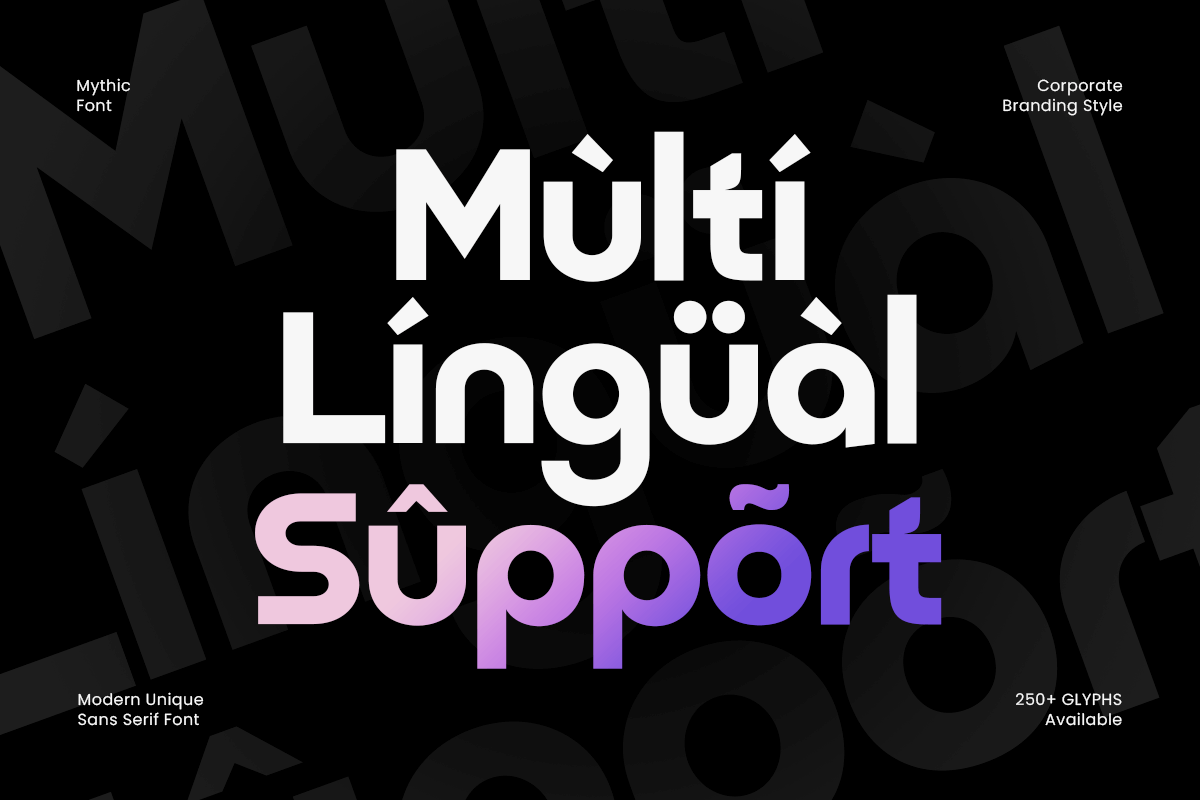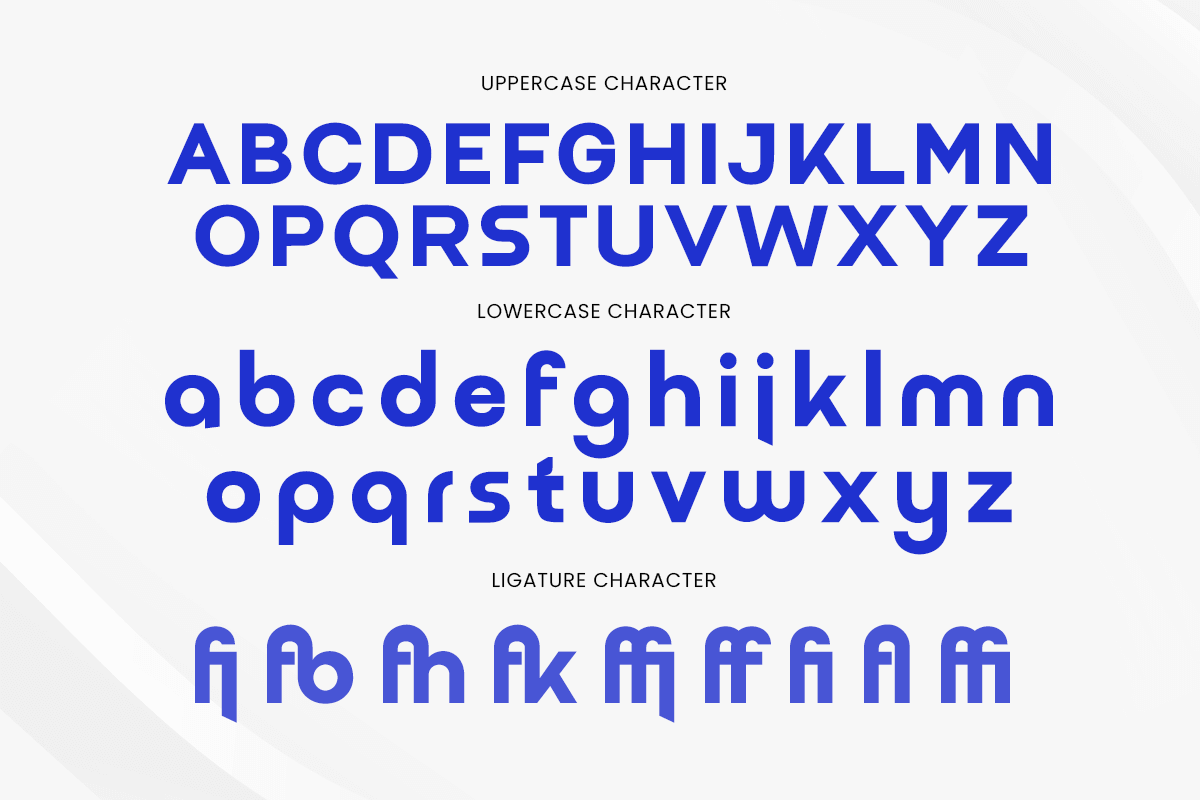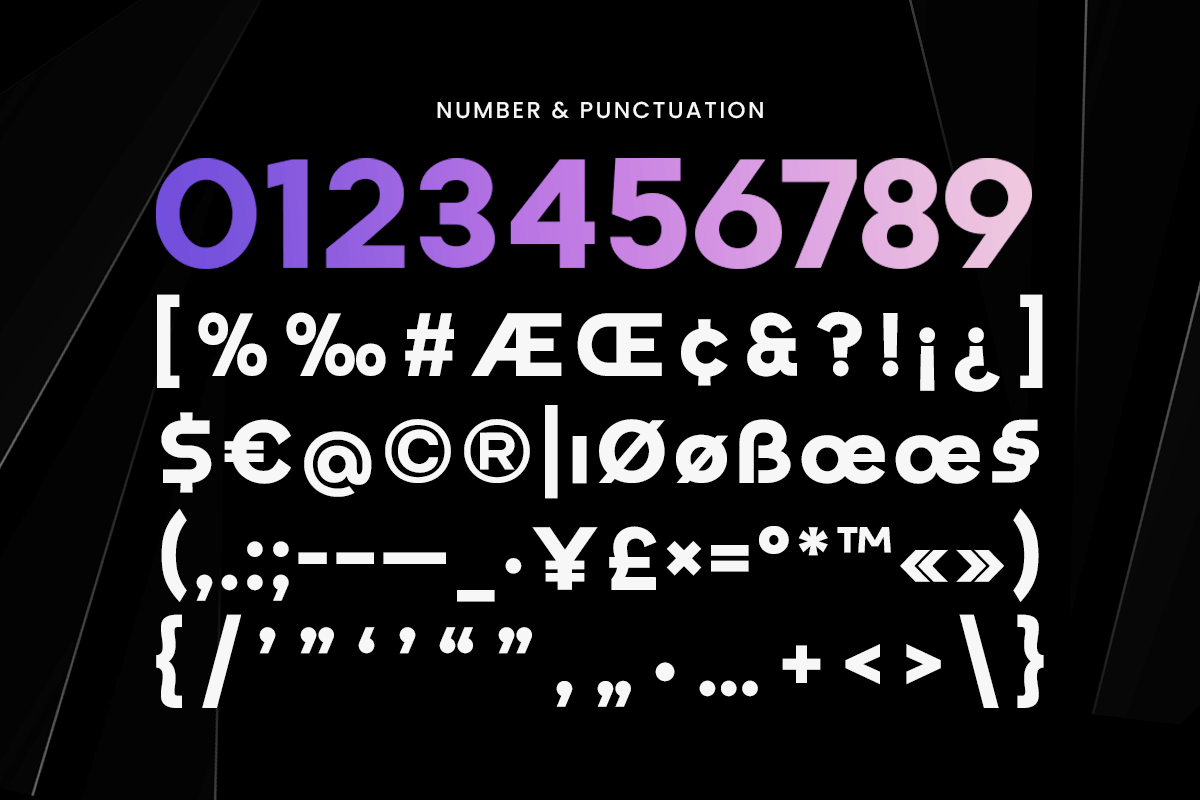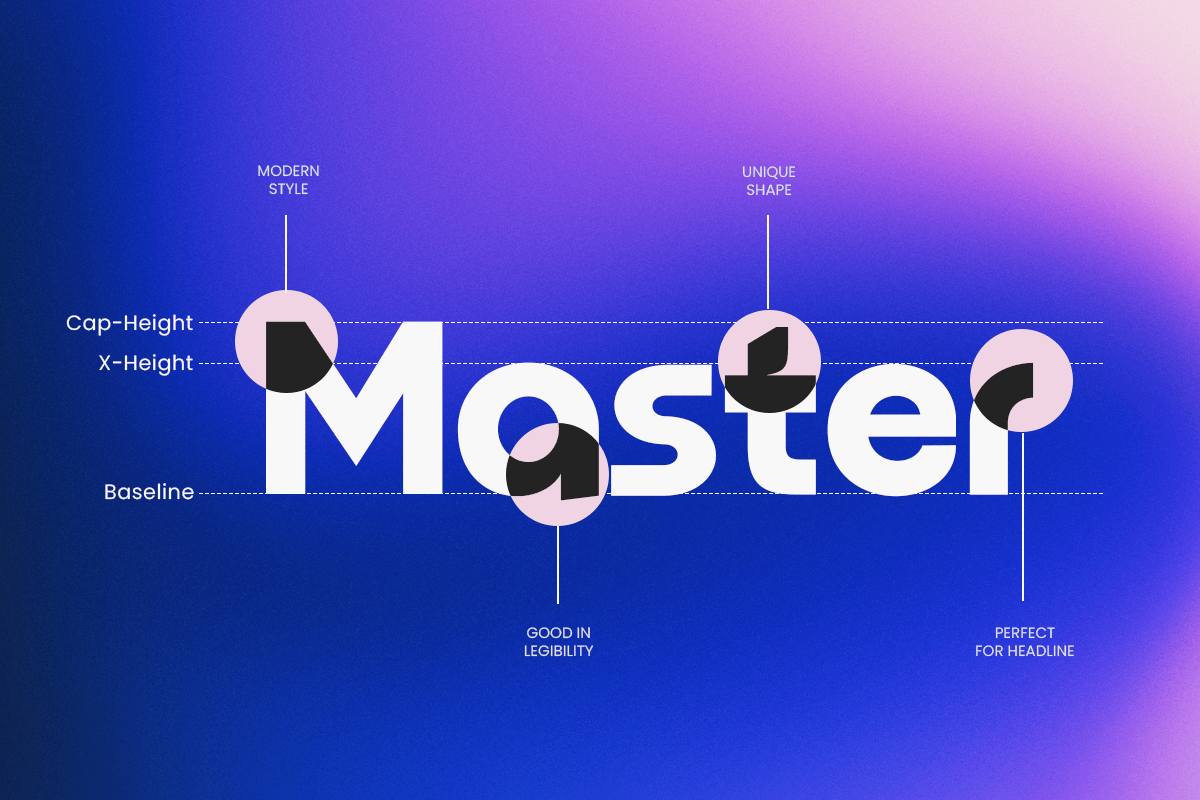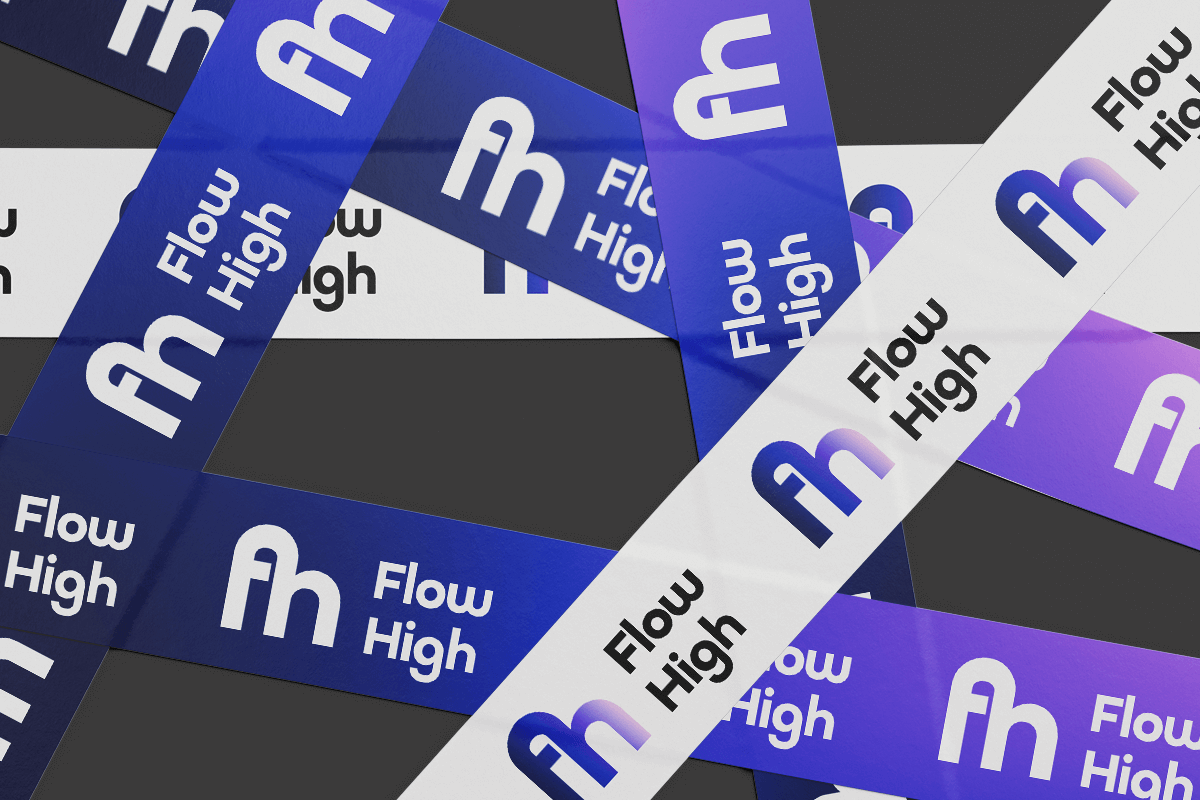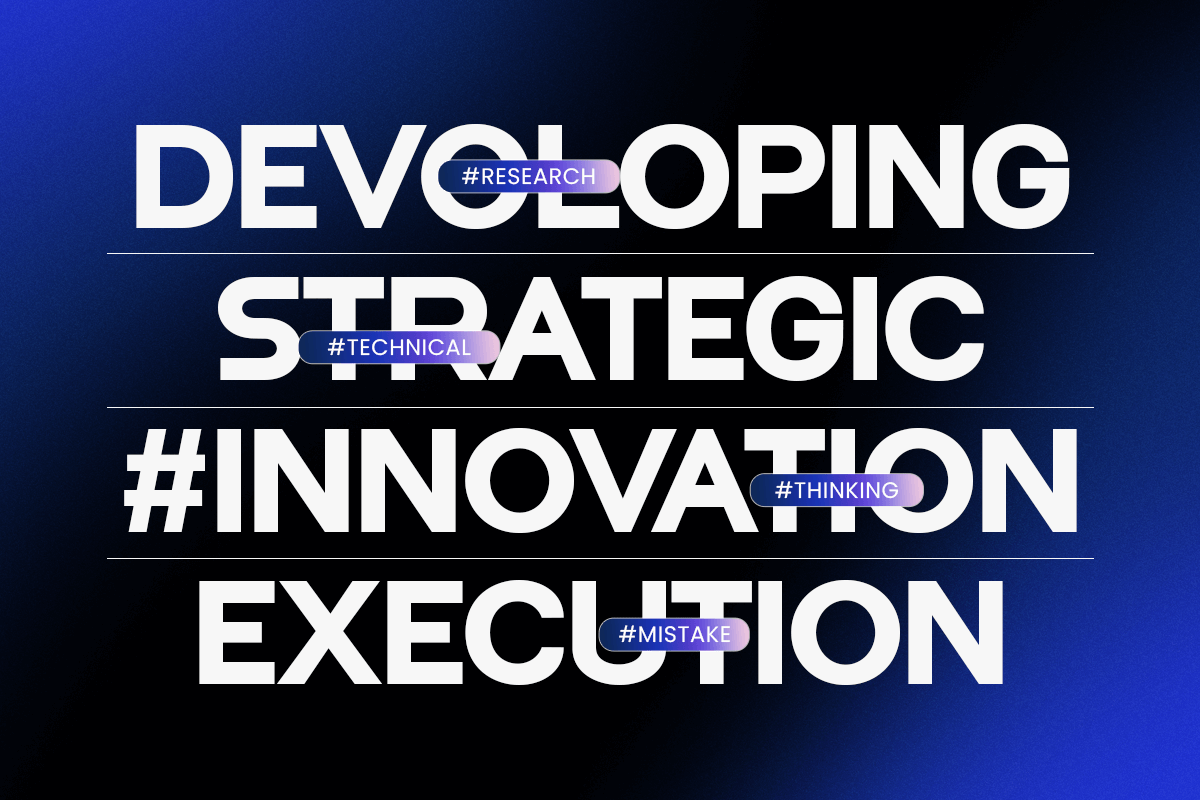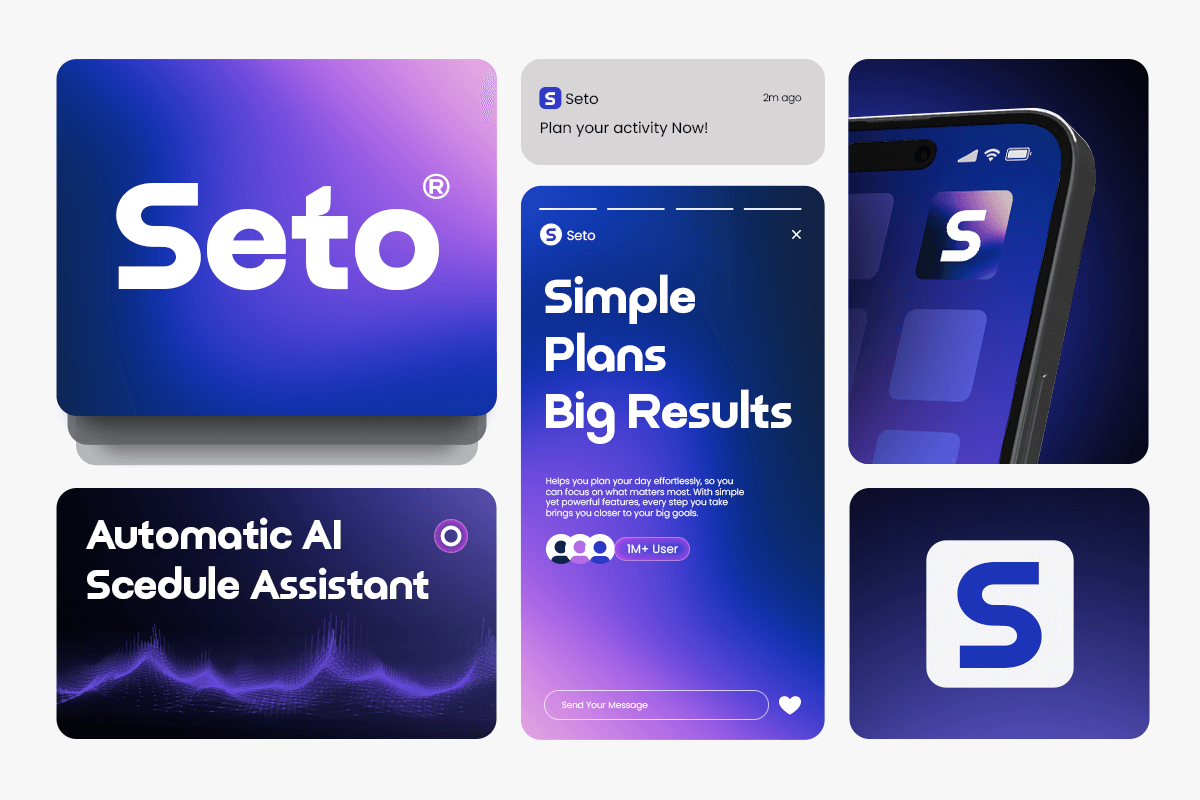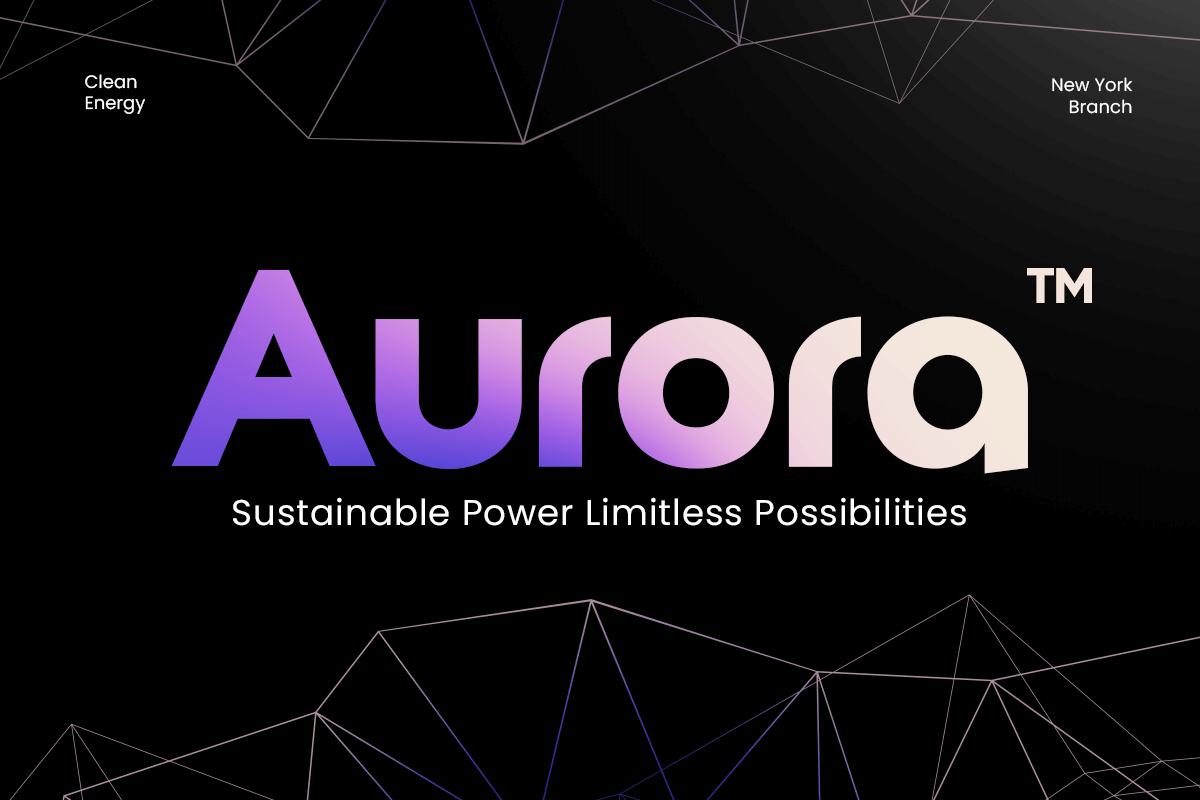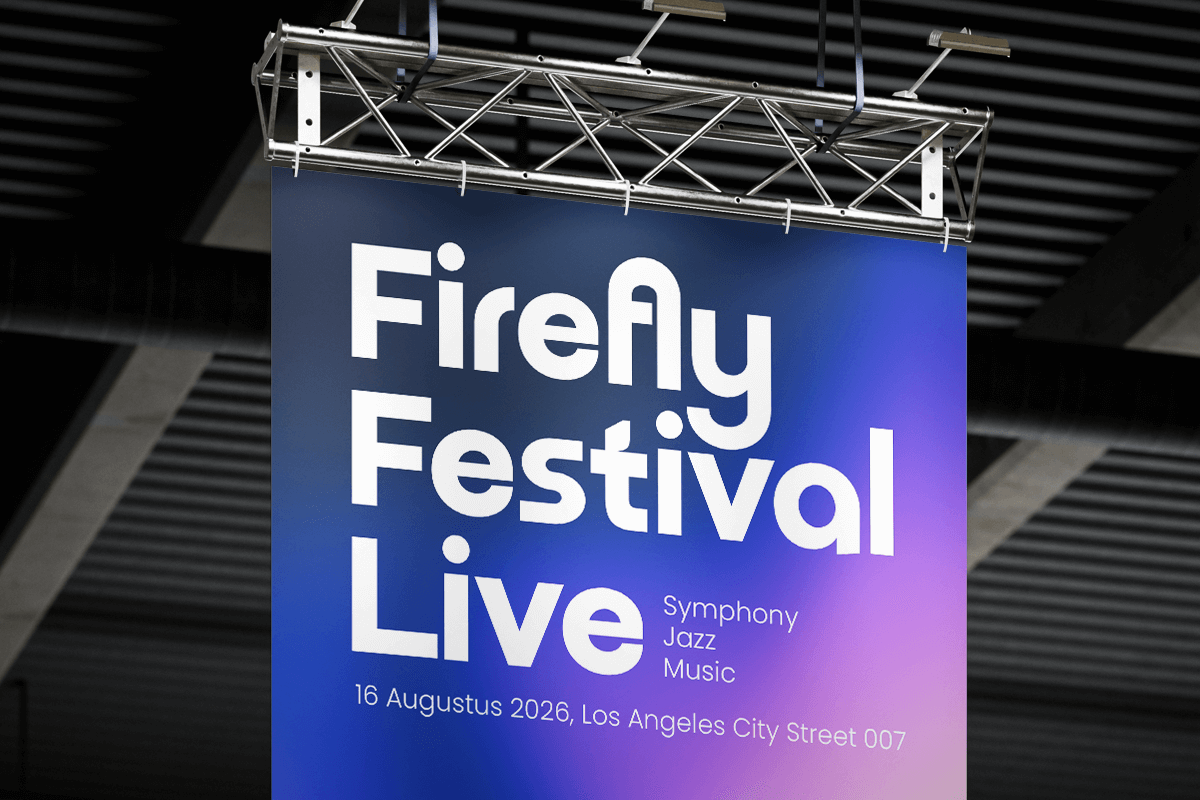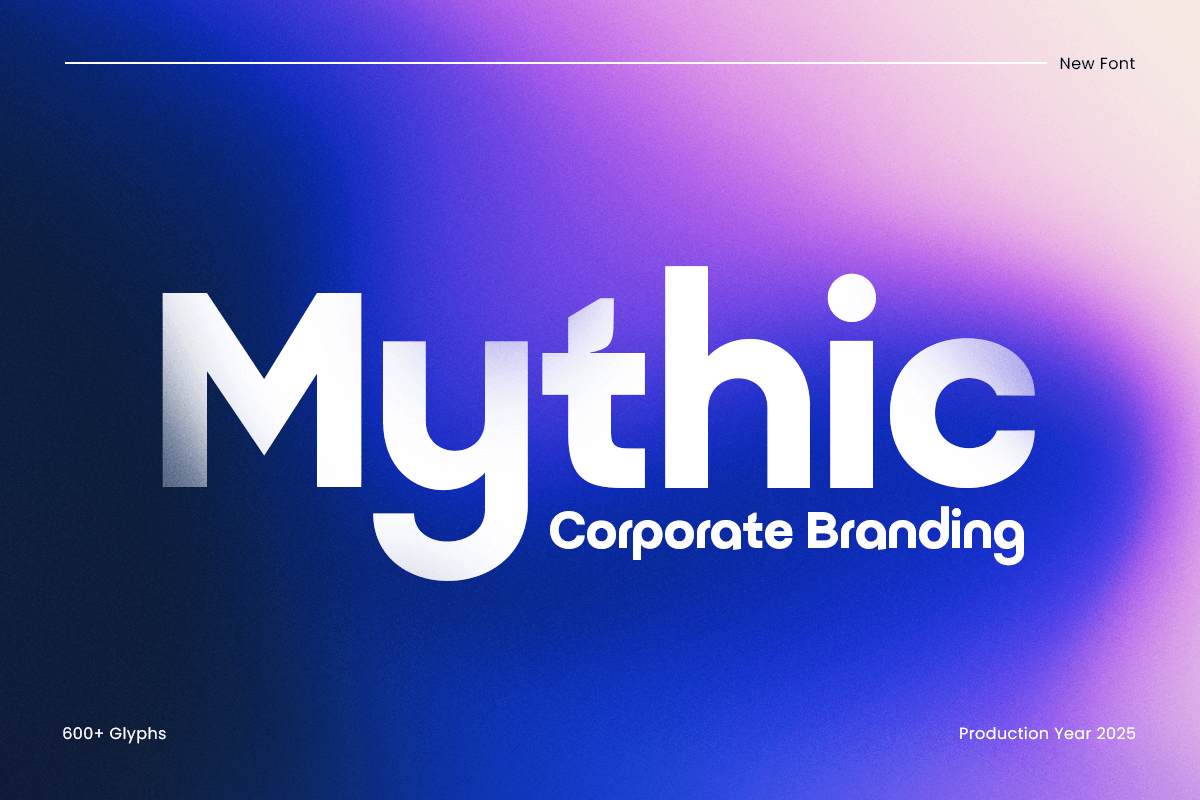
Mythic - Corporate Branding Font
MYTHIC is a corporate branding font designed to provide clarity, professionalism, and modern elegance to your projects. Its clean and balanced letterforms make it perfect for corporate logos, business identity, presentations, and professional materials. Whether you’re designing for startups, enterprises, or digital brands, MYTHIC ensures a polished, contemporary look that communicates reliability and sophistication. Its versatile style adapts seamlessly across print and digital applications.
MYTHIC – Corporate Branding Font Features
\\\* Clean and professional letterforms ideal for corporate branding
\\\* Sleek and modern design for business and logo projects
\\\* Includes uppercase, lowercase, numerals, and punctuation
\\\* Versatile for digital and print applications
\\\* OpenType features for flexible typographic use
Enhance your corporate identity with MYTHIC – the ultimate font for modern, clean, and professional branding.